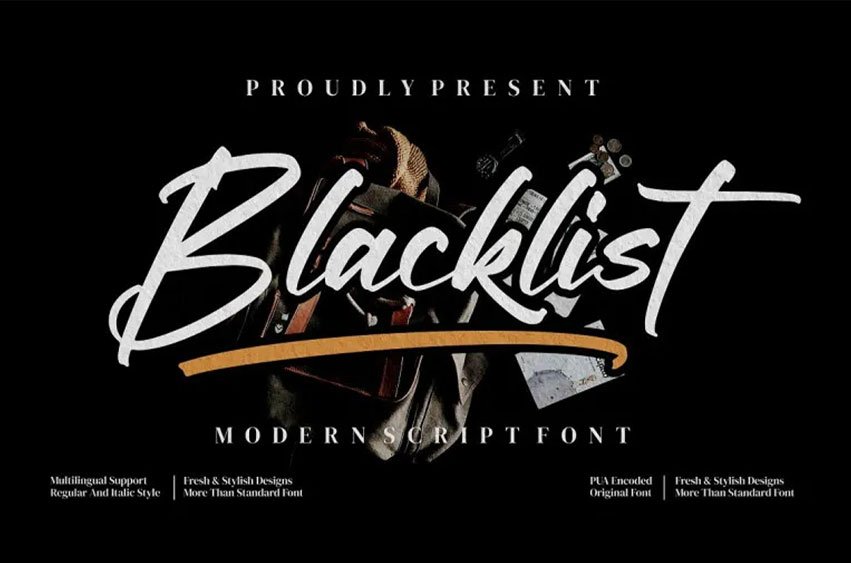
Blacklist Font is an eye-catching handwritten font designed to add flair and modernity to logotypes and headlines.
Bold and modern in design, Blacklist will add plenty of nostalgia and character to your designs.